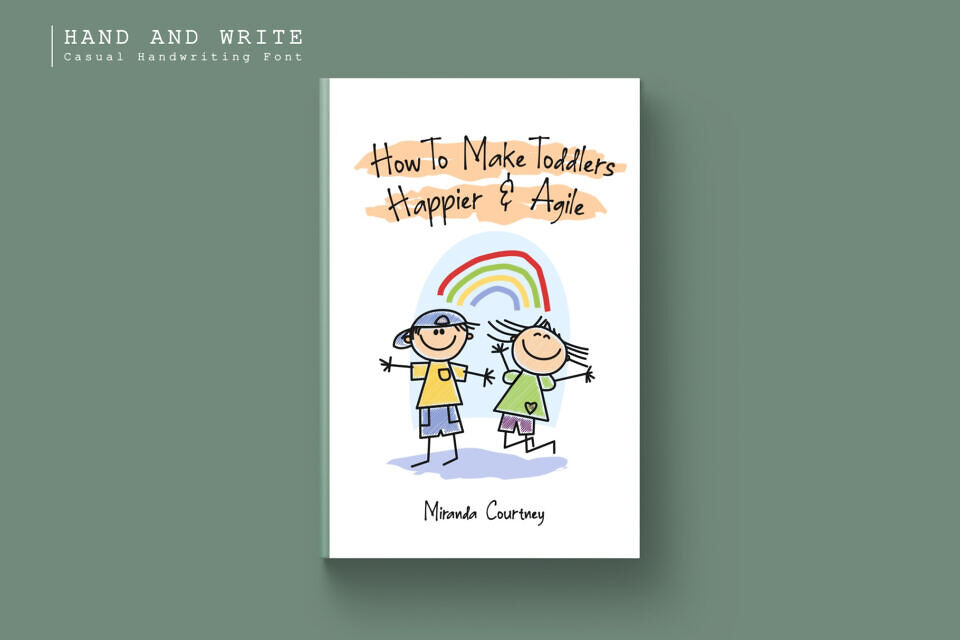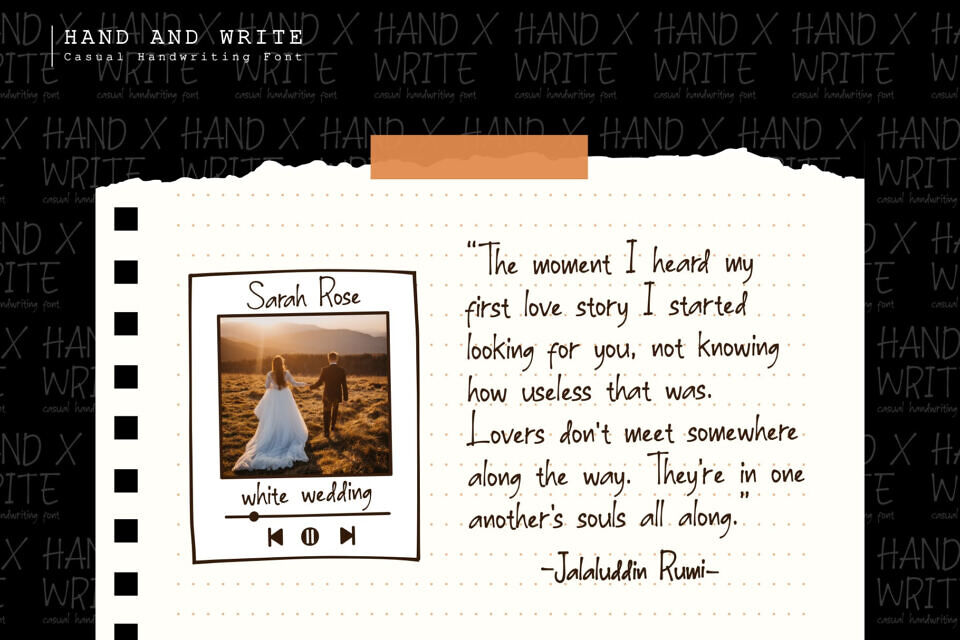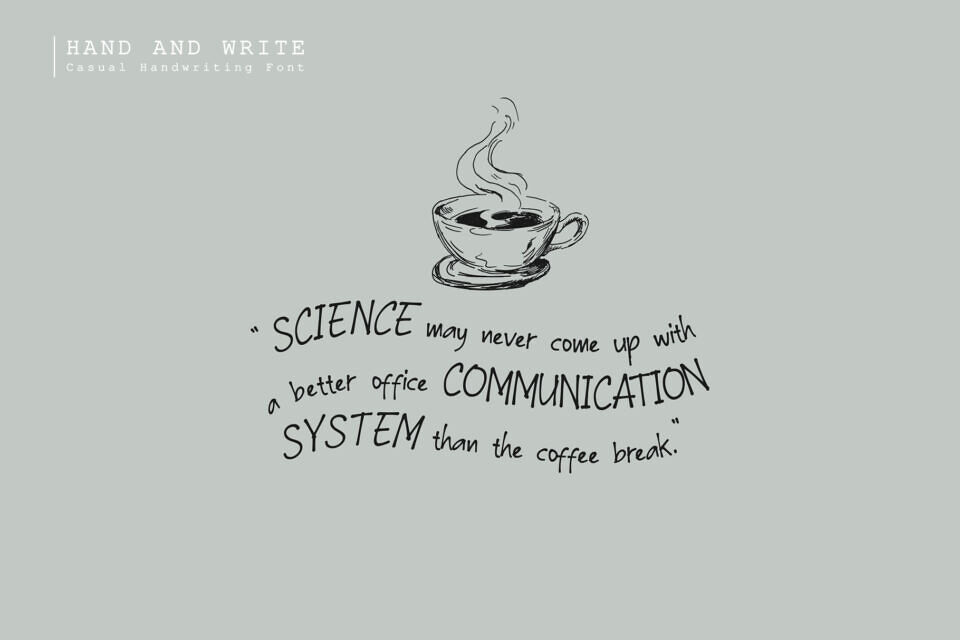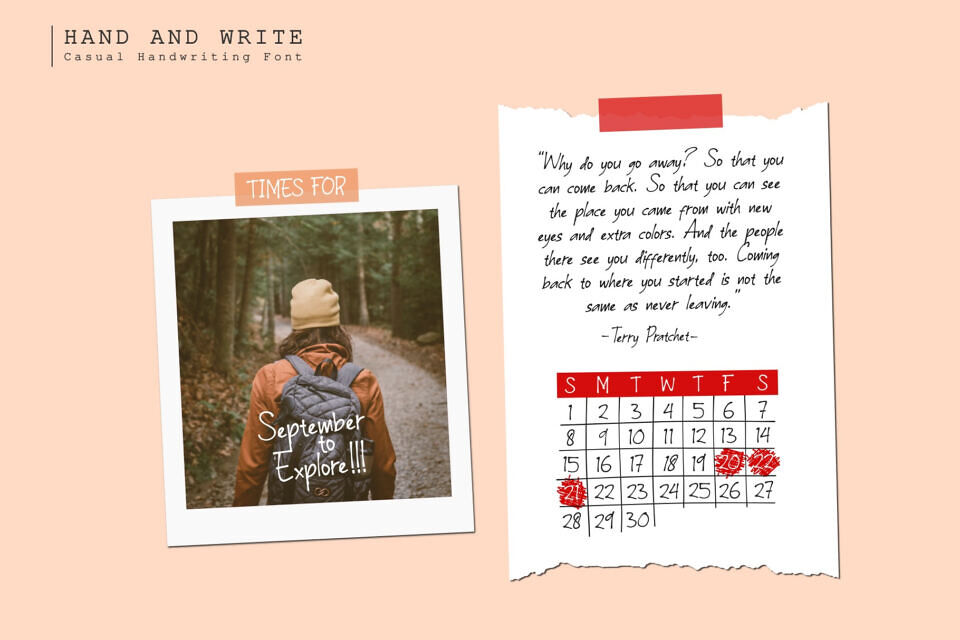
Hand & Write is a casual handwriting font that has 4 styles linked regular, italic, bold, and bold-italic. Hand & Write font is by inspired casual hand write so this font is suitable for quote text, sticky notes, fun and childish themes, scrapbooks, greeting cards, etc.